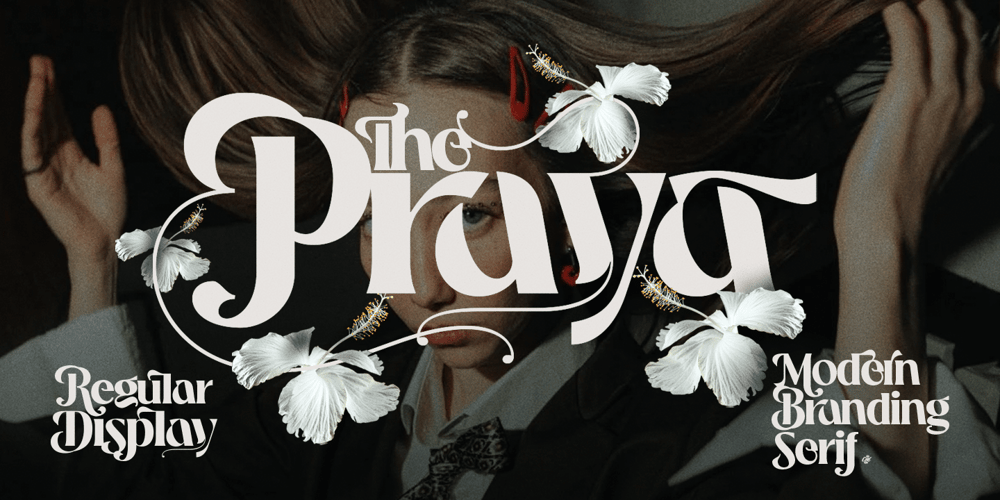
Praya Font Family was designed by Kadek Mahardika and published by Creativemedialab. Praya contains 14 styles and family package options. Introducing Praya, a modern font family for branding and display.Inspired by the shape and beauty of the hibiscus flower, it consists of two variants, regular and display, and each variant has seven weights from thin to black.This unique font family features a range of beautiful alternate options with dynamic curves, adding an exotic and elegant touch to your design projects.